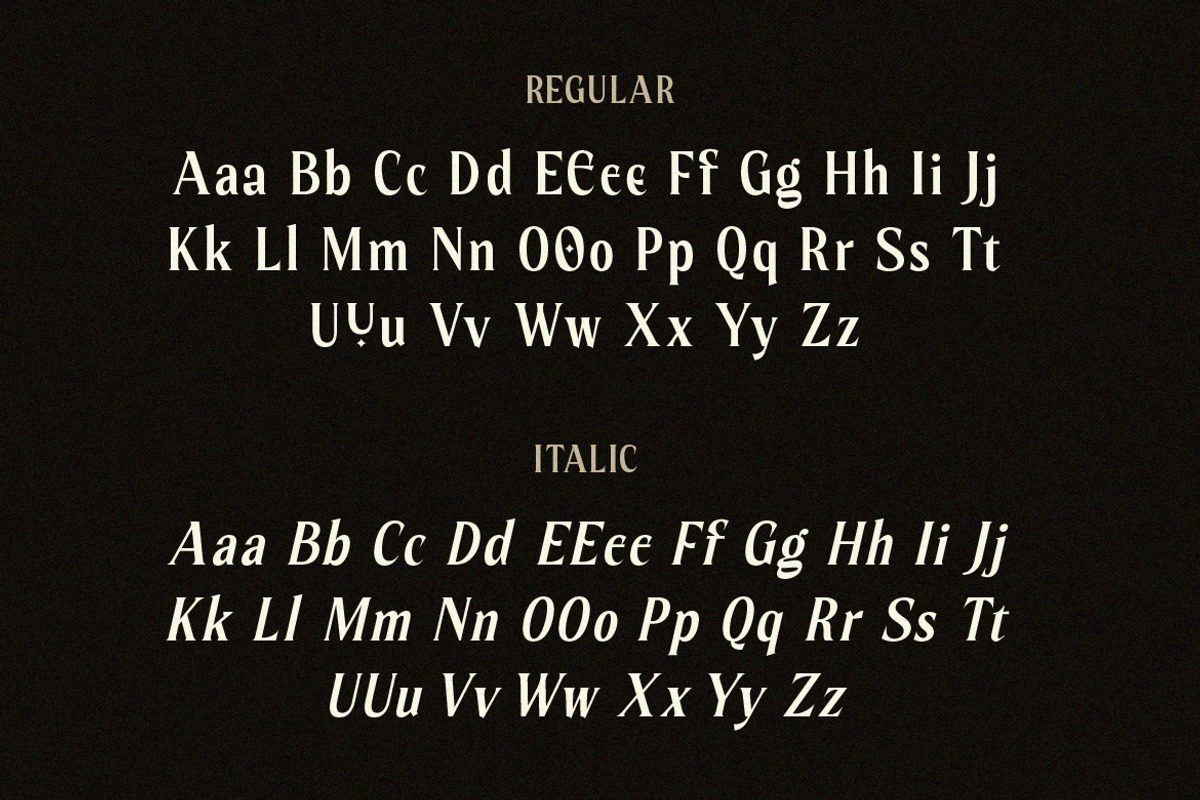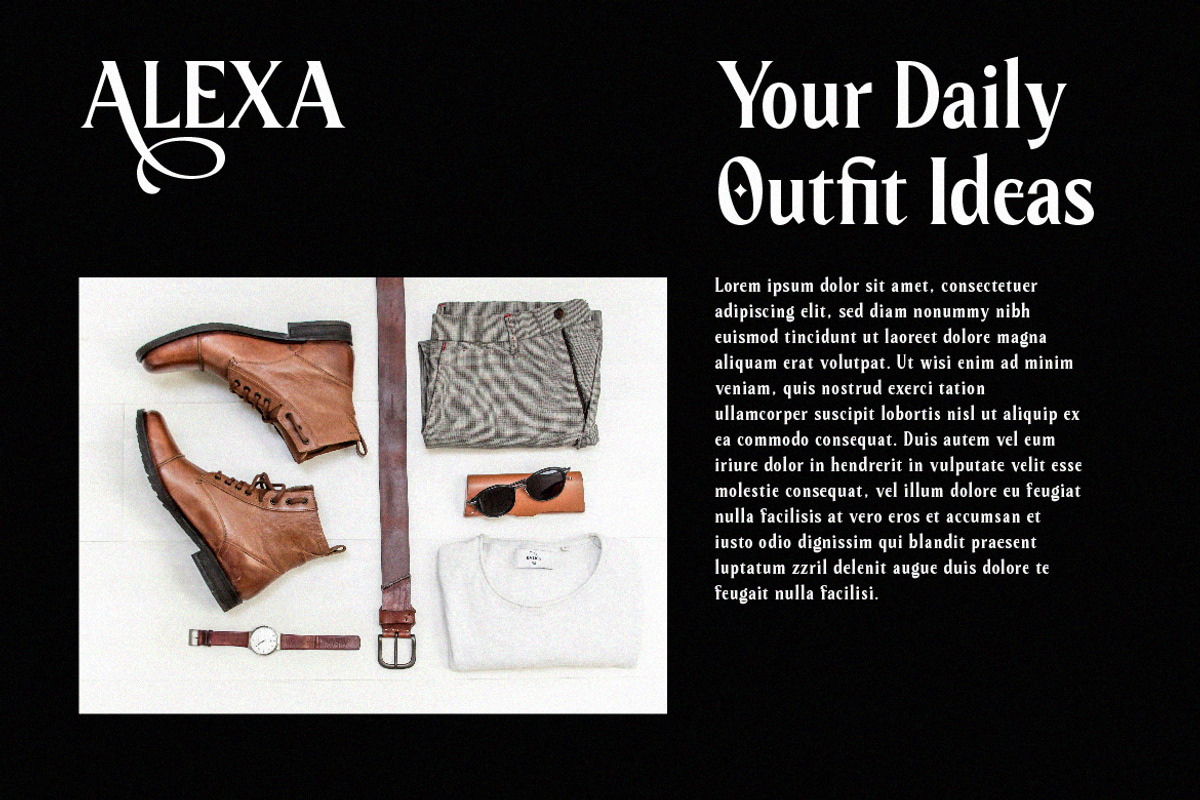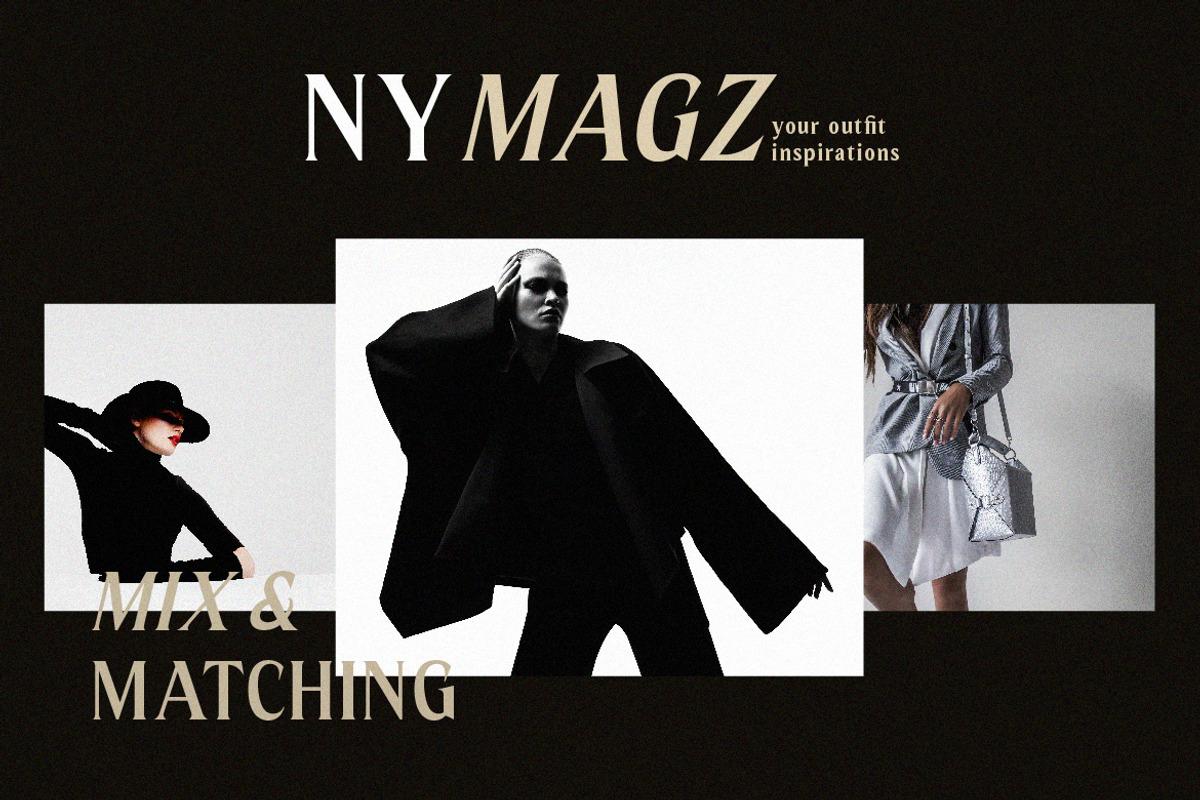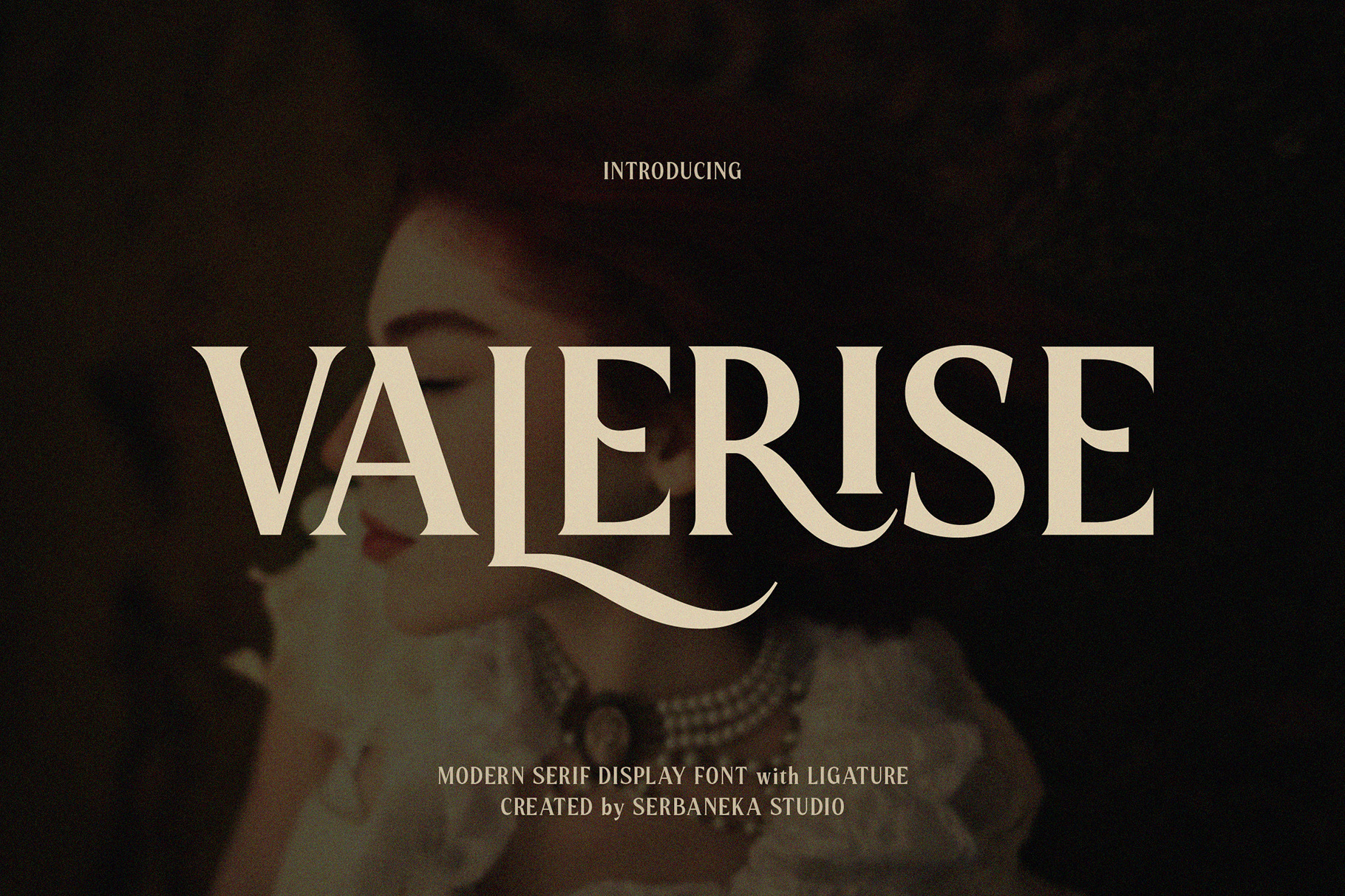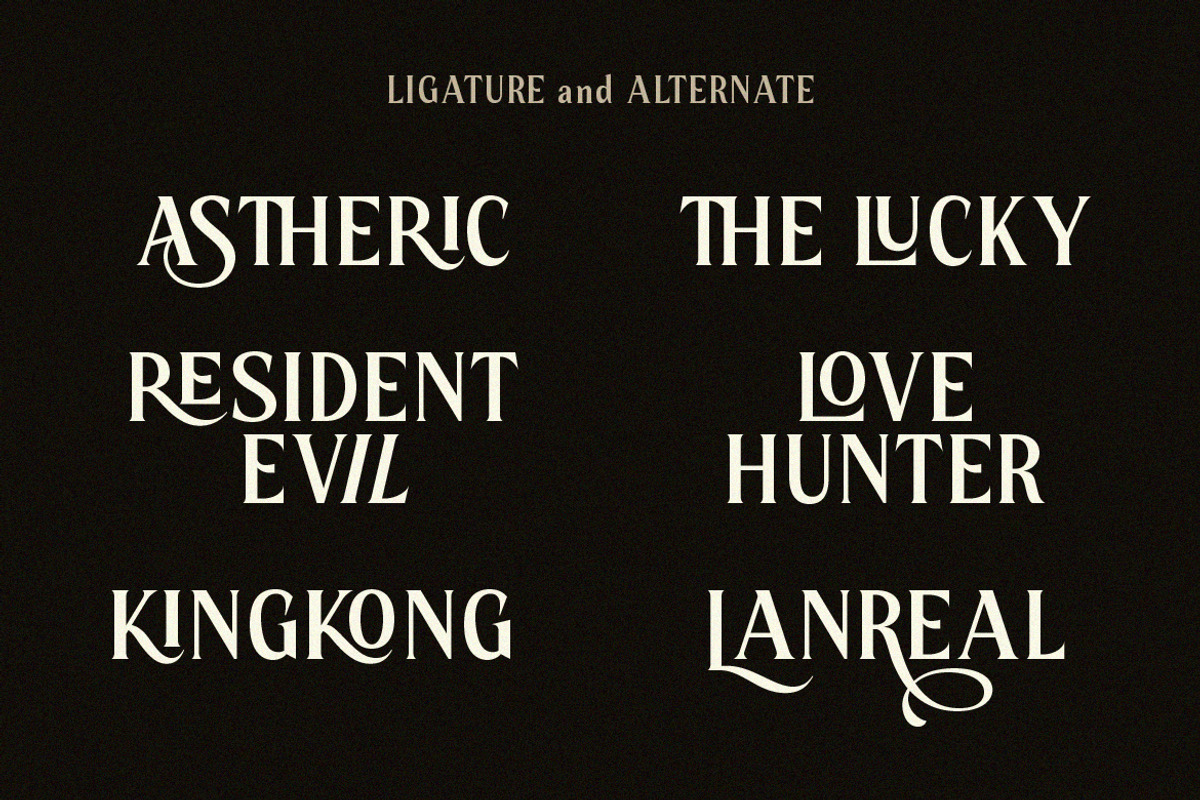
Valerise Elegant Serif Display Font
Valerise is an elegant modern serif display font crafted with refined curves, high contrast strokes, and beautiful flowing ligatures. Designed to bring a luxurious and sophisticated feel, this typeface blends classic serif structure with contemporary styling.
The graceful alternates and stylish swashes create a premium editorial look, making it perfect for fashion branding, magazine headlines, luxury logos, cosmetic packaging, and high-end visual identities.
With its dramatic letterforms and carefully designed ligatures, Valerise adds instant elegance and charm to any design project.
- Uppercase & Lowercase Letters
- Stylish Ligatures
- Beautiful Alternates & Swashes
- Fashion & Editorial Design
- Luxury Branding
- Magazine Layouts
- Logo Design
- Cosmetic & Beauty Packaging
- Wedding Invitations
- Social Media Graphics
- High-End Advertising
Valerise is where modern elegance meets timeless sophistication.